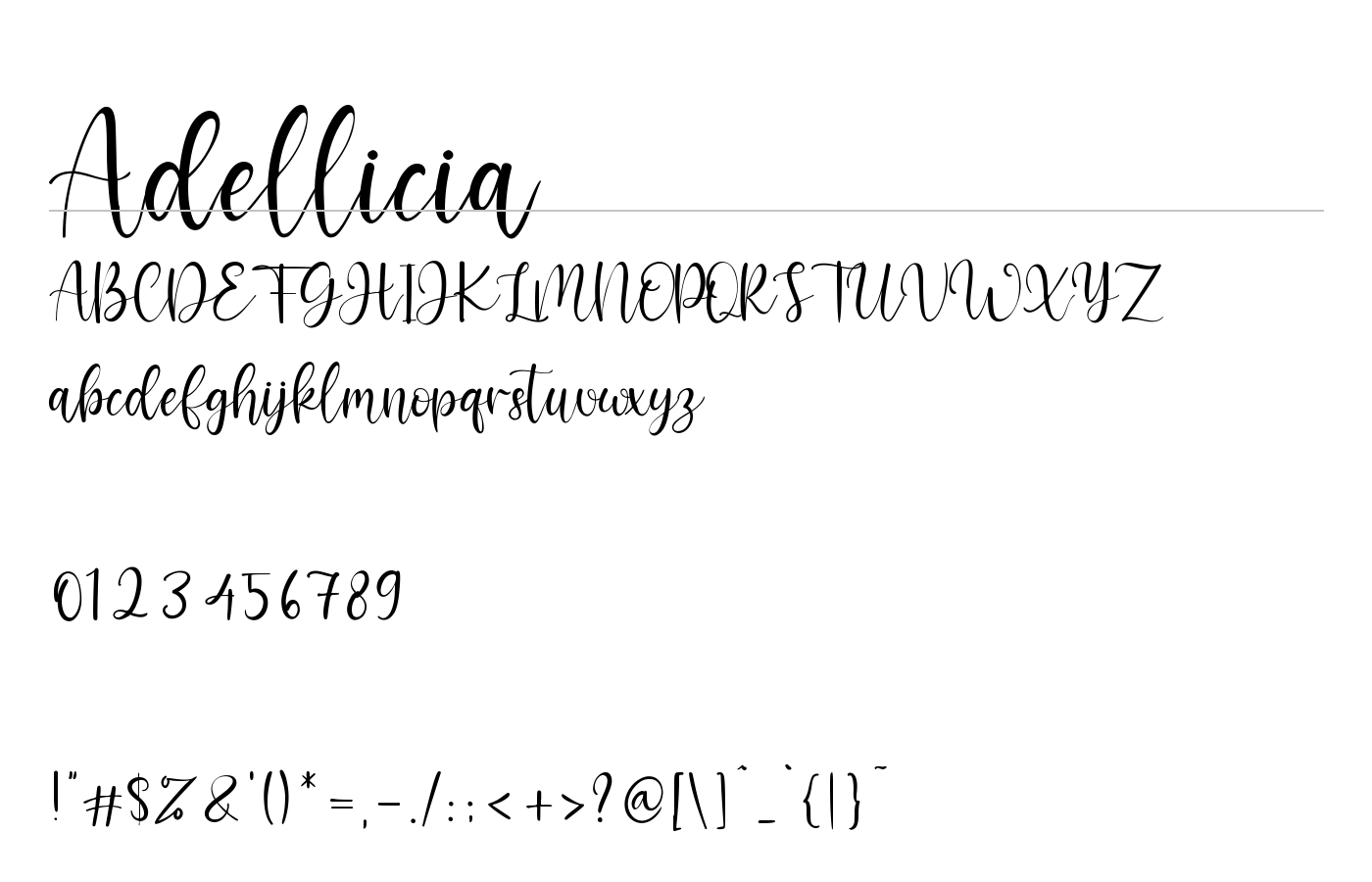
Adellicia is a delicate, handwritten script font characterized by its thin strokes and elegant, flowing letterforms. It combines a refined, whimsical feel with moderate contrast and unique uppercase details, making it perfect for invitations, branding, and creative projects that seek a stylish yet approachable look. This font shines in designs that aim to convey warmth, charm, and sophistication.
Adellicia Font
About Adellicia Font